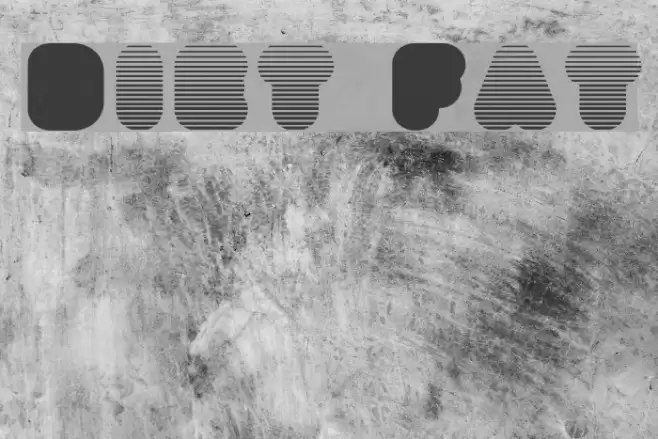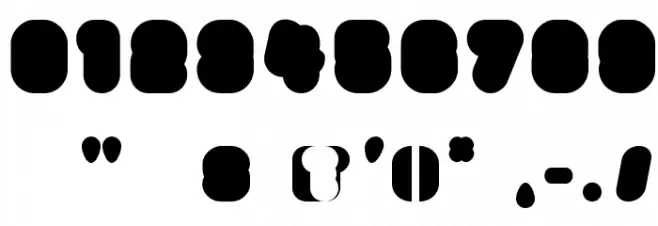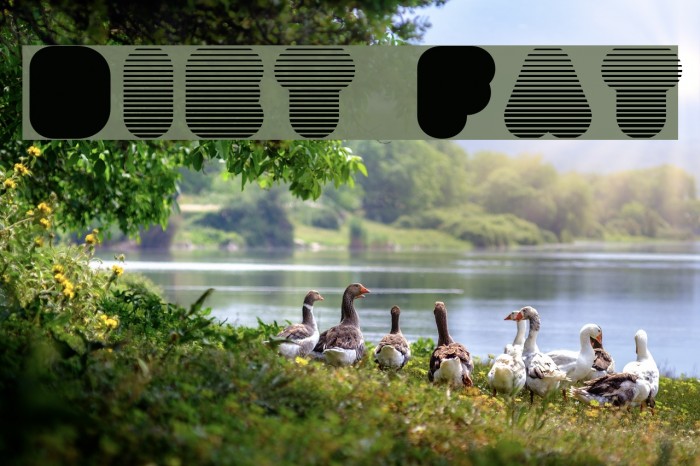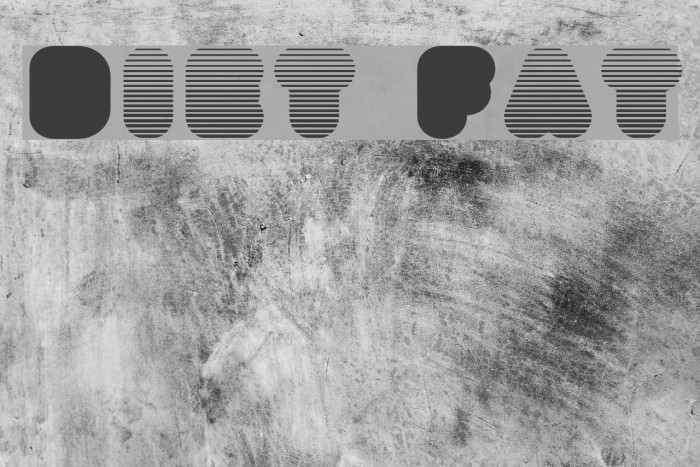
Diet Fat Font
Diet Fat Description
This bold and playful font features a unique, rounded design with a bubble-like appearance. The uppercase letters are solid and bold, creating a strong visual impact. The lowercase letters maintain the same playful style, with consistent thickness throughout. The numbers are equally bold, ensuring they stand out in any design. Special characters are creatively designed, adding to the font's overall whimsical feel. The font's distinct style makes it ideal for projects that require a fun and eye-catching typeface.
A bold, playful font with a bubble-like, rounded design from Crazy fonts.
- Proposed Projects: Ideal for children's books, playful branding, posters, and creative advertising.
- Overall Style: Playful, Modern